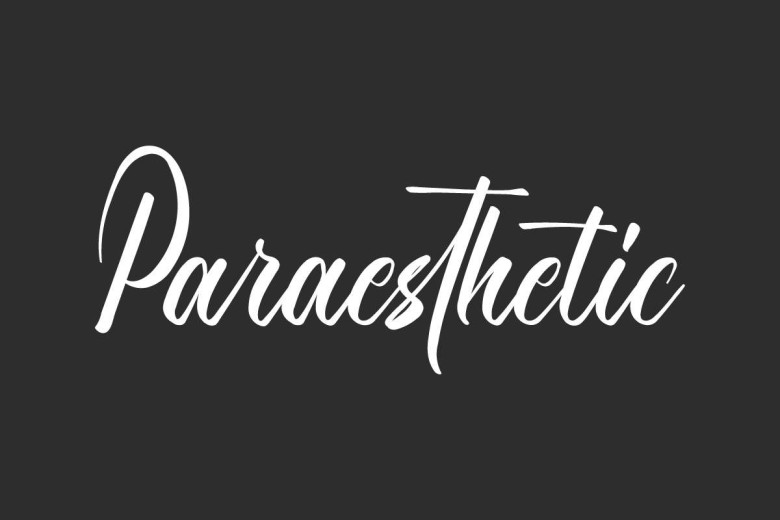
Paraesthetic font is an eye-catching script calligraphy font with an elegant aesthetic, creating the impression that flowers are blowing in the breeze. Perfect for advertising, art galleries, cafes, hotels & resorts, fashion, florists handicrafts jewelry perfumes printing publishing skincare & wedding planners this font stands out with its beautiful script calligraphy design.
Paraesthetic Font consists of Uppercase and Lowercase Basic characters, Numbers, and Punctuation. Its Ligature characters add a stylish edge. Paraesthetic can be used in various projects like brand logos, posters, labels, packaging designs, posters stationery websites brochures custom frames invitations etc.
Paraesthetic Calligraphy Font